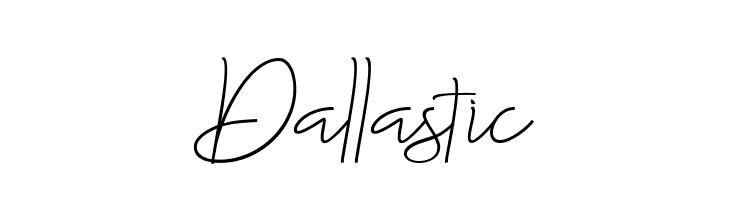
A dynamic, fluid script font with elegant, flowing cursive letters.
A lively and flowing script font with elegant, elongated letterforms.
An elegant script font with fluid, cursive strokes and sophisticated flourishes.
A dynamic and elegant script font with a flowing, handwritten style.
A flowing, cursive script font with elegant, smooth curves.